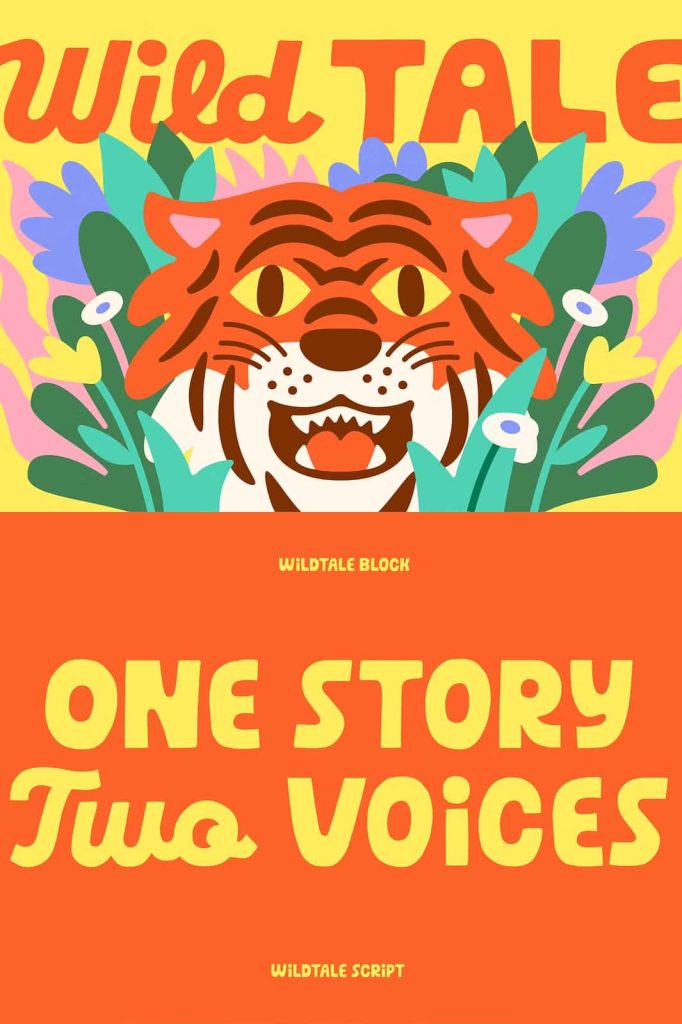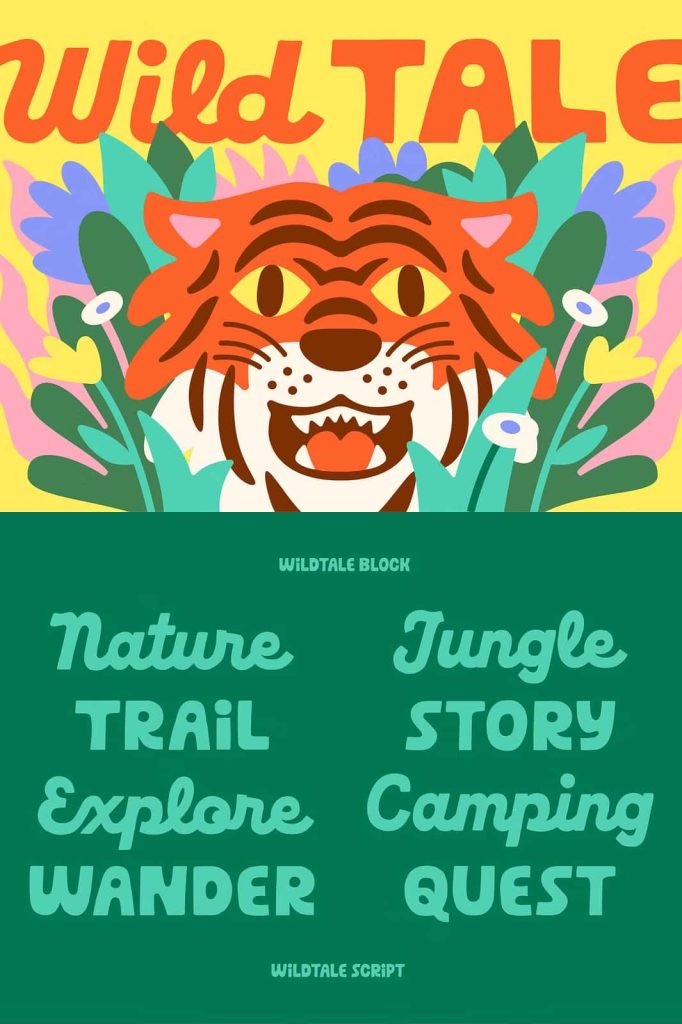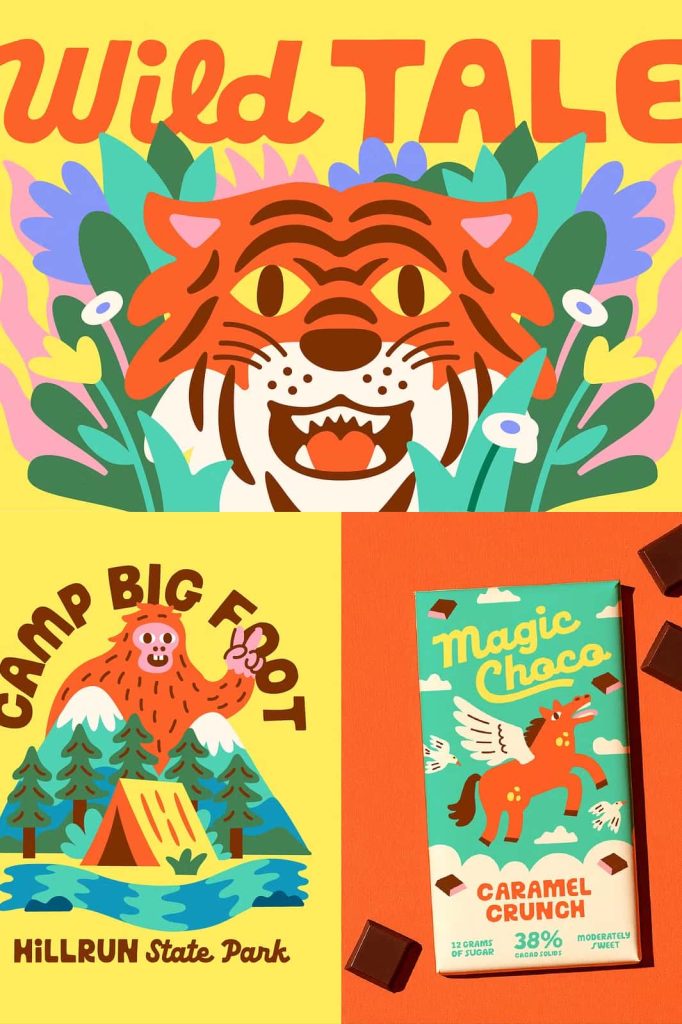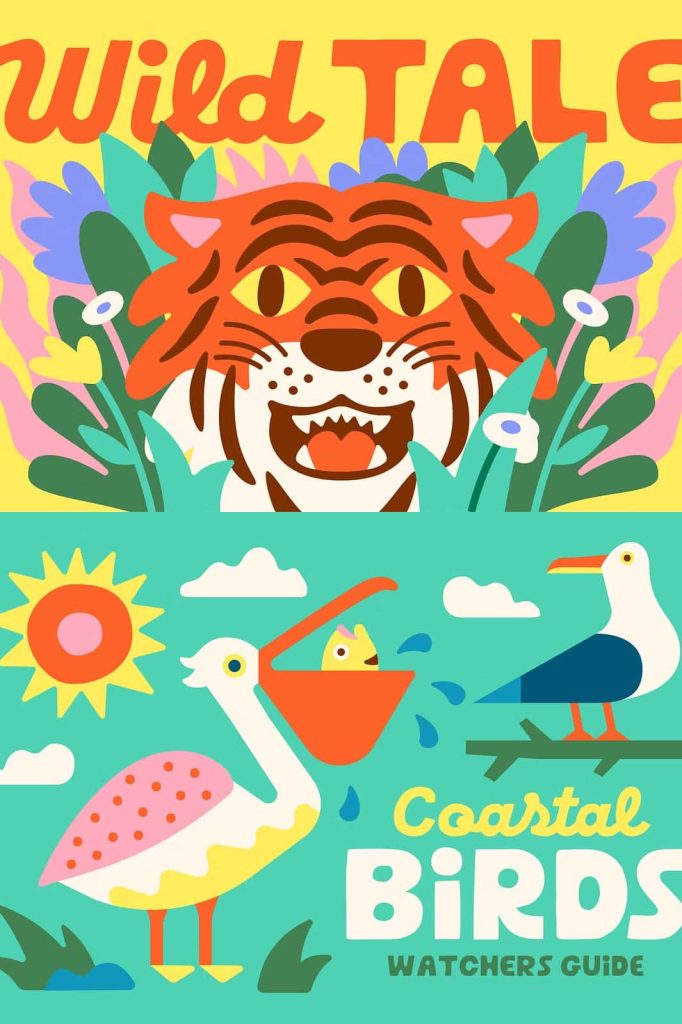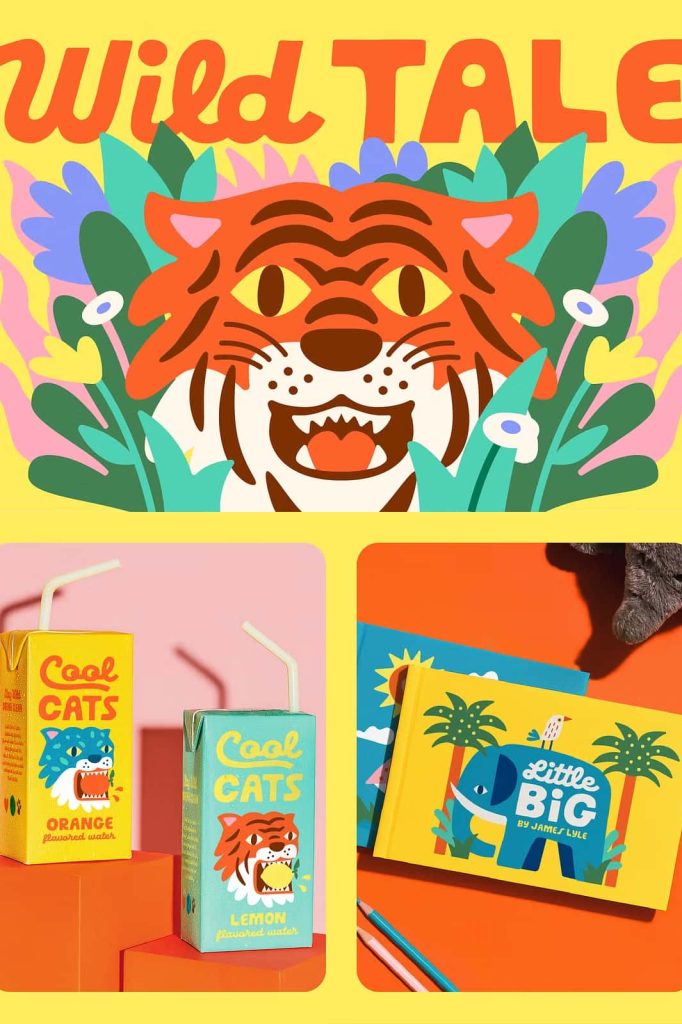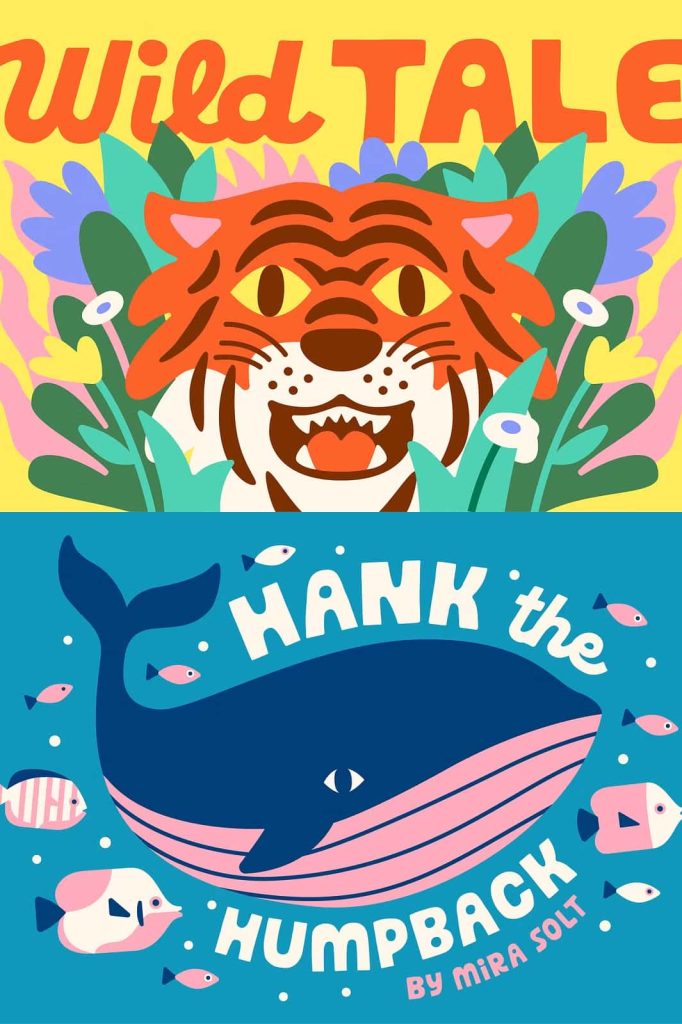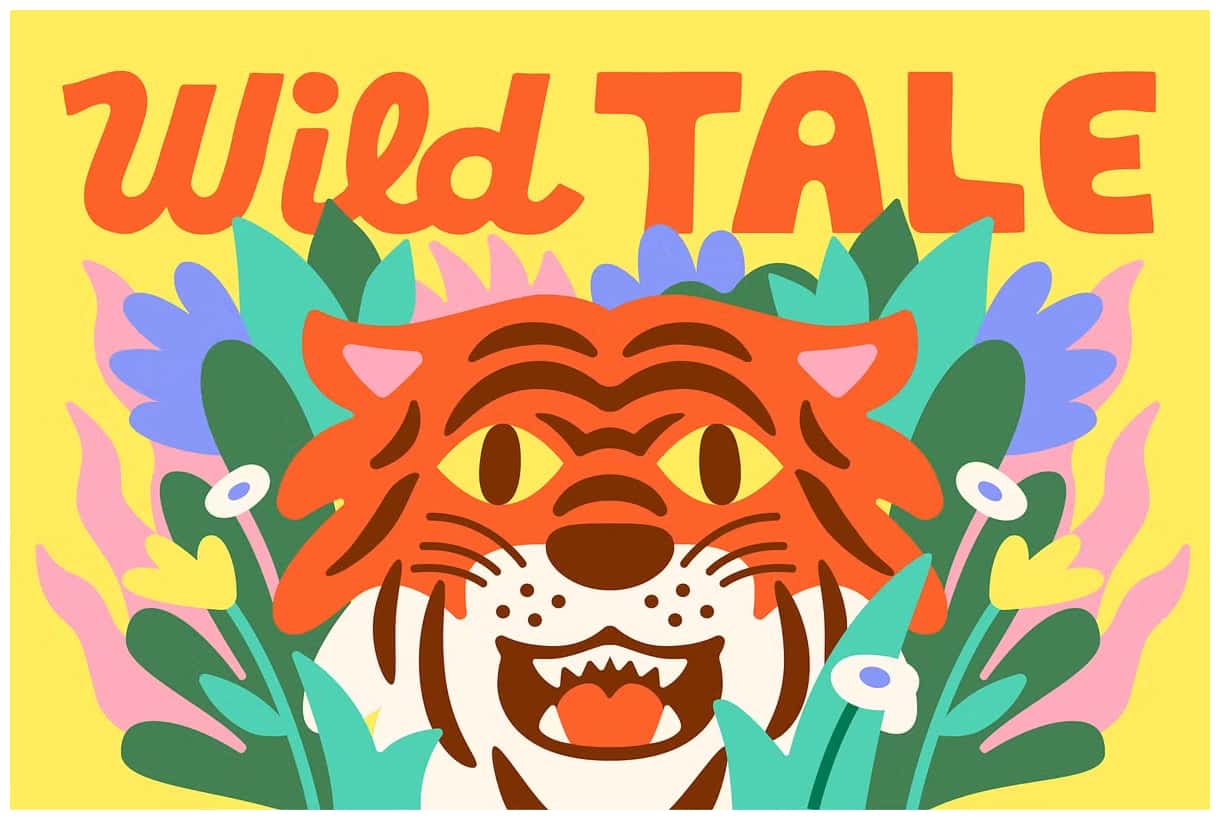
nce upon a time, we doodled up a pair of hand-drawn fonts — a chunky, all-caps sans and a loose, playful script — made to bring a little charm and character to whatever you’re working on. Whether it’s branding, posters, packaging, or just a goofy side project, Wild Tale adds a touch of personality without trying too hard.